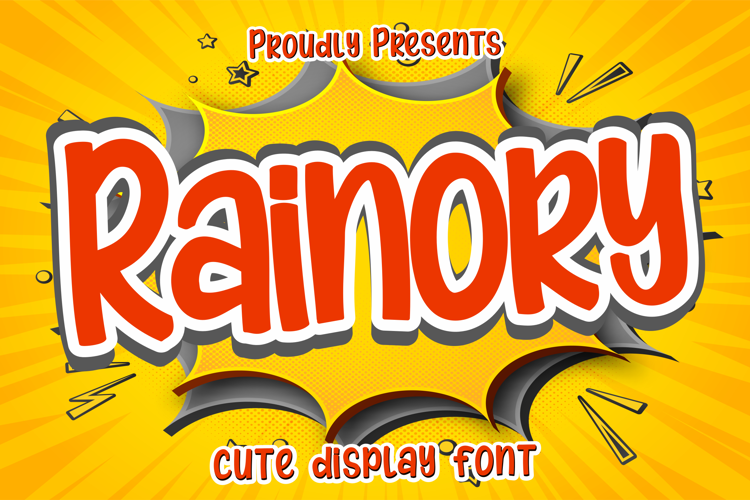
Rainory Font
Rainory embodies fun, uniqueness and authenticity. This dazzling handwritten font will turn any creative idea into a standout. Get inspired by its authentic feel and use it to make beautiful wedding invitations, beautiful stationery art, eye-catching social media posts, and cute greeting cards.